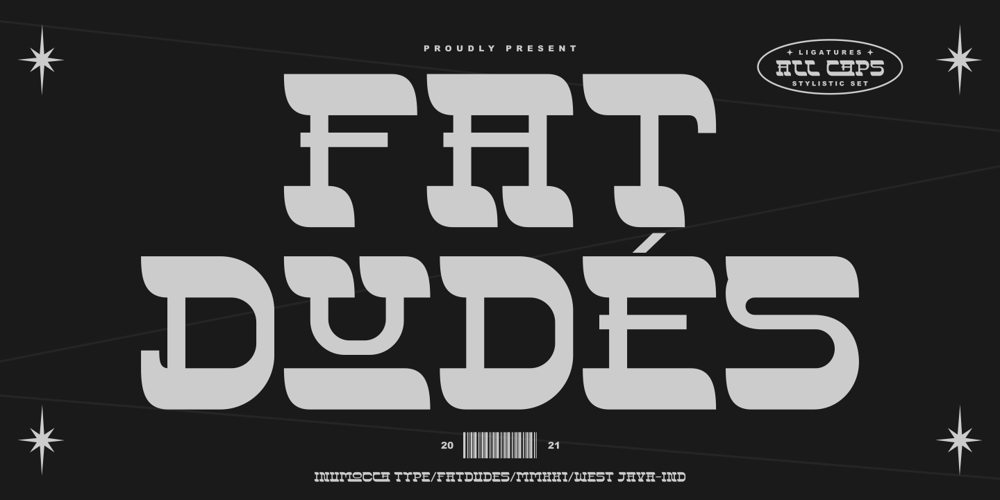
Fatdudes Font Family was designed by Inu Mocca and published by Inumocca. Fatdudes contains 1 styles and family package options. Fatdudes is A Reverse-Contrast letterform , western atmosphere.With Variant for the Capital Letters All Caps.and I want to Presenting the letterform Western styleThe Typeface comes with Stylistic Set and Ligature CombinationsExellent typeface to use for covering your Project, like Branding, Movie Title, Headline Letter, Bookcover or Book Content, Magazine cover, Poster, Quotes Lettering, Logos, and more your project design.- Unique glyphs- Multilingual Characters Support- UPPERCASE- Lowercase- Numeric- Symbol- Punctuation Character- Ligature- Stylistic Set*Note: for access SS01, SS02 and Ligature you must need Uppercase Letterinumocca type Studio